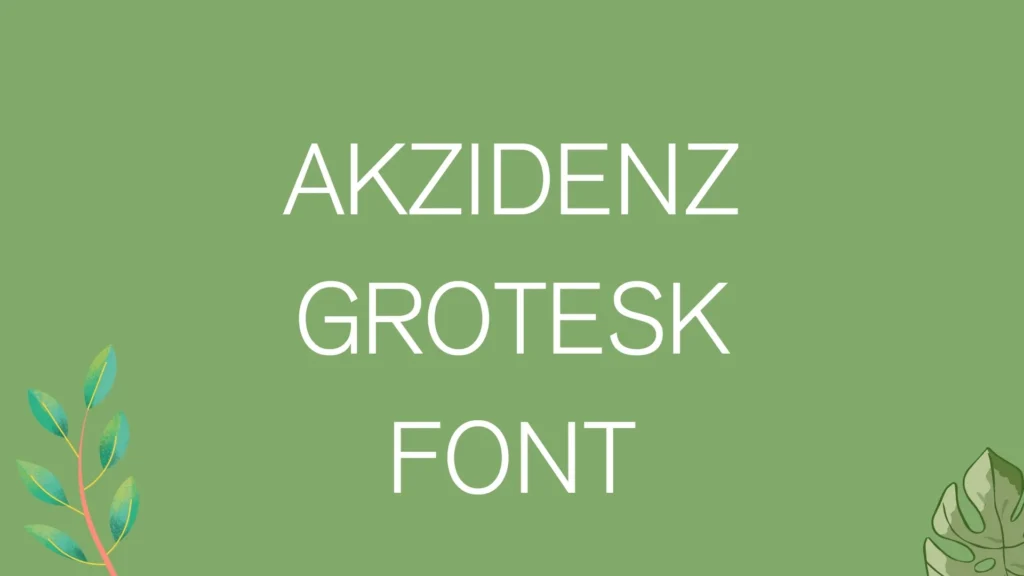
Akzidenz Grotesk Font is the sans-serif typeface that was designed by the famous font foundry Berthold Type Foundry in the year 1890. There are different places in which this typeface is being used.
With the use of this typeface along with the pair of biondi font you will get the vibes of traditional typefaces as this is the old typeface and because of that, this font gathered enormous acknowledgement.
There are many different swiss graphic and web designers who used this typeface in their commercial and private projects and also in the western world this typeface got much attention.
The generator tool of this typeface is also being used for creating different designs without the paid version of this font and the best alternative of this typeface is ailerons font.
Reason to Use Akzidenz Grotesk Font
This typeface is released many decades ago but still, this typeface is used in a number of different fields and this font will be the centre of attraction. The main use of this typeface can be seen in the Logo of the United States Air Force.
This typeface with the pair of blackletter font can easily be used for many projects such Logos, Titles, Advertisement, websites, Designs, Banners, Headings and many more.
| Name | Akzidenz Grotesk Font |
| Designer | Berthold Type Foundry |
| Type | Grotesque Sans-Serif |
| Date Released | 1896 |
Akzidenz Grotesk Font View
If you looking forward to the styling of this typeface then we have shared this image.
What Type of Font Is Akzidenz Grotesk?
This is the sans-serif typeface that was designed by the famous font foundry Berthold Type Foundry in the year 1890. There are different places in which this typeface is being used.
Is Akzidenz Grotesk a Professional Font to Use?
Yes, this is the professional font that is used by a number of designers along with the bebas neue font in their designs and content as well.
Who Founded Akzidenz Grotesk Font?
This typeface is founded by the famous font foundry Berthold Type Foundry.